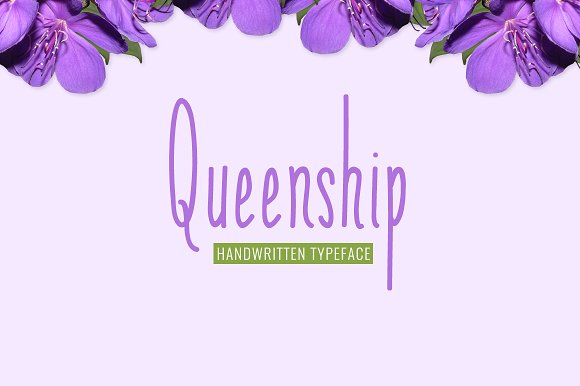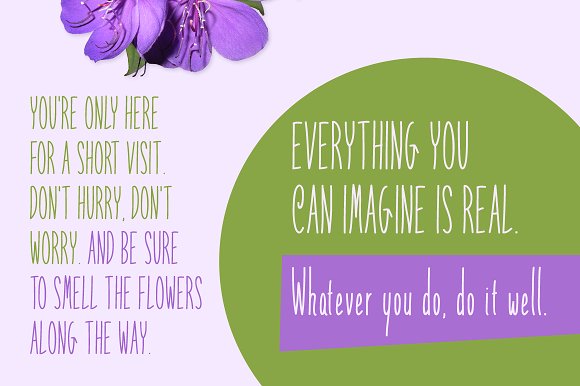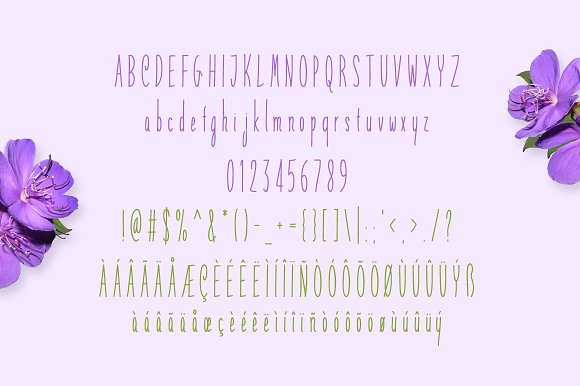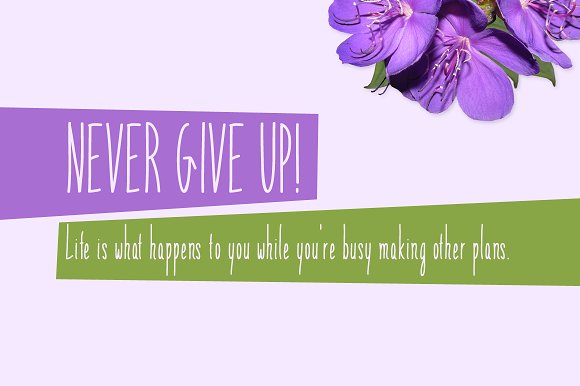
Queenship Typeface
Introducing Queenship!
Queenship is a brand new handwritten font. Very suitable for logos, t-shirts, print design, website headers, photo frames, flyers, album covers, posters, image sliders and much more.!